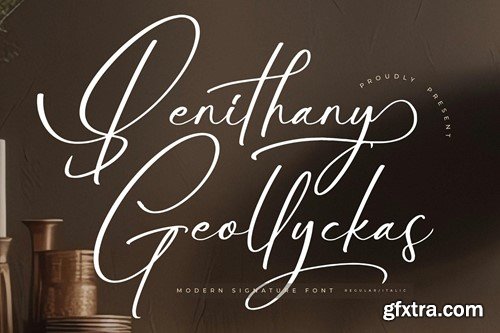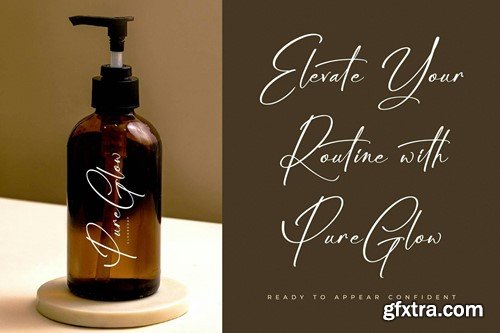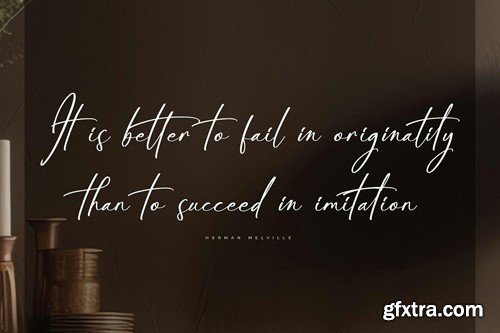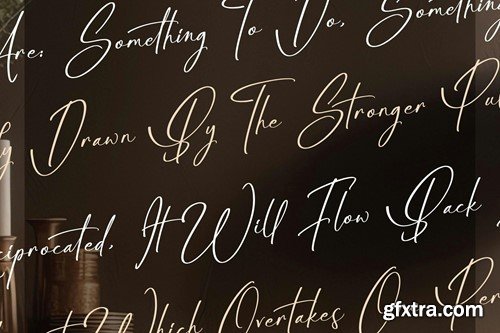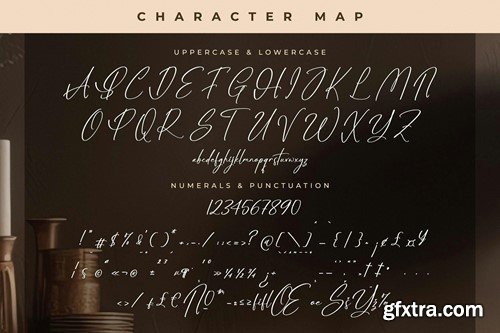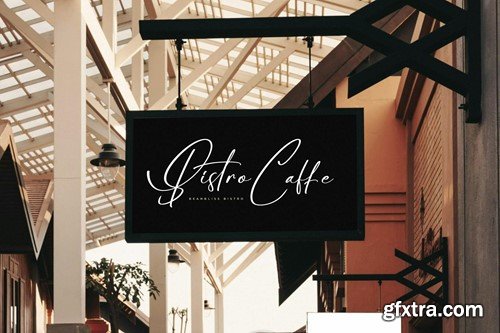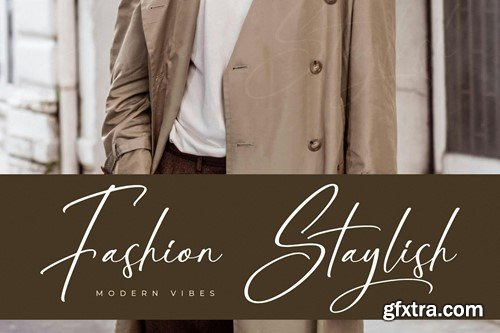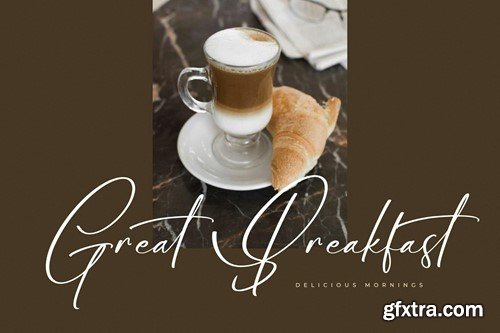
Benithany Geollyckas Modern Signature Font SK5S3JU
Benithany Geollyckas Modern Signature Font
Hi ladies & gentlemen, this is one of our fonts suitable to complement your digital and printed creative products. This font is perfect for posters, social media posts, branding, personal projects, etc.